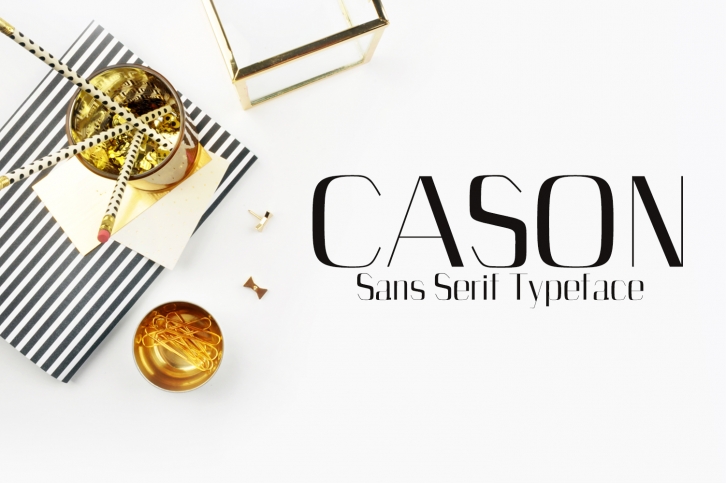
Cason Sans Serif Typeface is a gorgeous font that was realeased on May 18, 2017. The font can be used in many style contexts and design environments. Perfect for invitations, magazines, websites, logos, and more! It was designed by Creativetacos and the file size is 19.18 MB. Thanks for checking out this font!